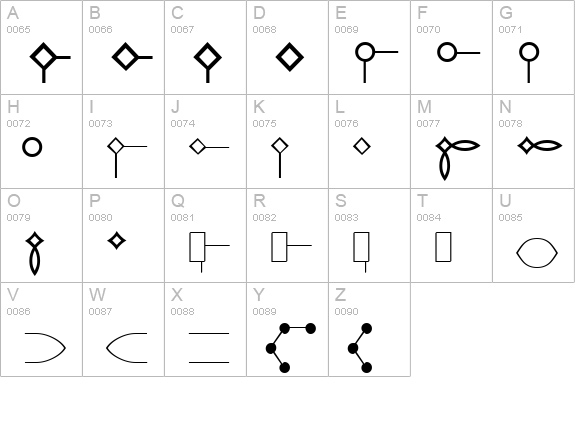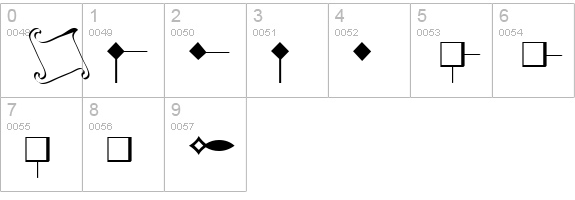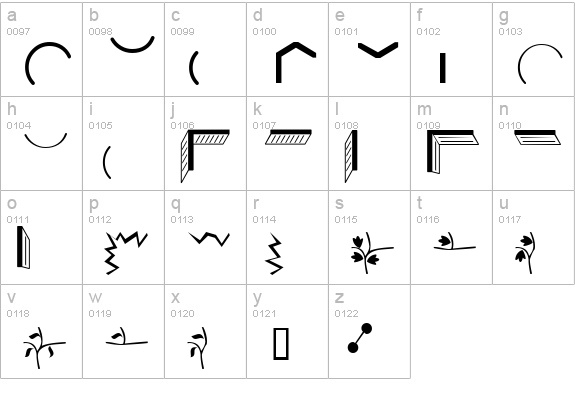
XMMPattern Font Details
XMMPattern font is a modern and stylish typeface that adds a unique touch to any design project. This versatile font features a geometric pattern design that is both eye-catching and sophisticated. With its clean lines and contemporary feel, XMMPattern font is perfect for a variety of uses, from branding to packaging to social media graphics. One of the best things about XMMPattern font is that it is completely free to download at FontsMarket.com. This means that you can easily access this high-quality font without any cost, making it a great option for designers on a budget or anyone looking to add a fresh look to their projects. Whether you're working on a logo, poster, website, or any other design, XMMPattern font is sure to make a statement. Its unique design and modern aesthetic will help your work stand out and leave a lasting impression on your audience. Download XMMPattern font today and take your designs to the next level!